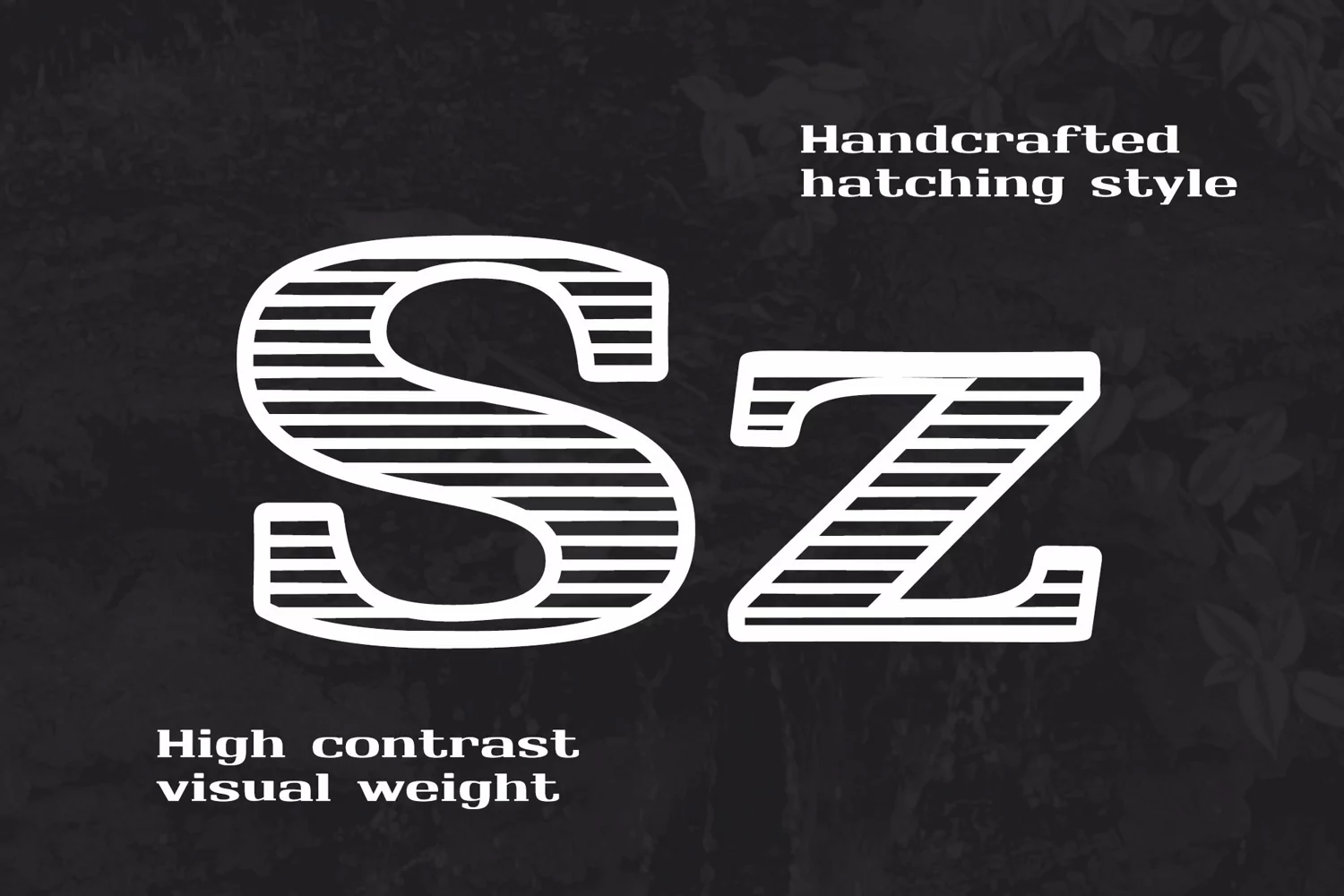
Horizontal Line Font | Monarch North
Introducing Monarch North, a handcrafted wide-bodied slab serif with beautiful line hatching.
Monarch North is a thick slab serif that features high contrast weight, thick rounded serifs, and unique horizontal line hatching that's subtly different on every glyph. This typeface was designed for displays and branding, and works especially well for faux chalkboard designs. Use this handcrafted font to make interesting designs that look as unique as the product or service it represents.
Pro tip: Monarch North Solid and Hatch versions are both included and look excellent when paired together. Use 'Hatch' for your headlines or large text, then use 'Solid' for smaller descriptive text and paragraphs.